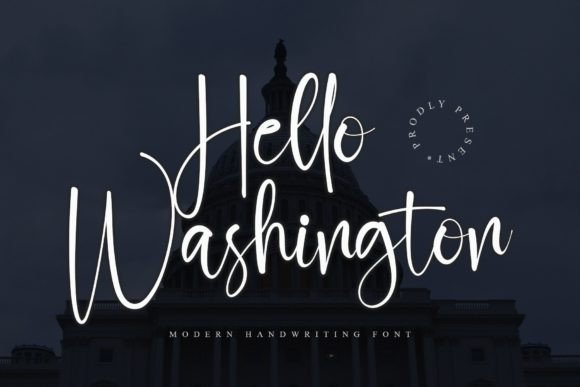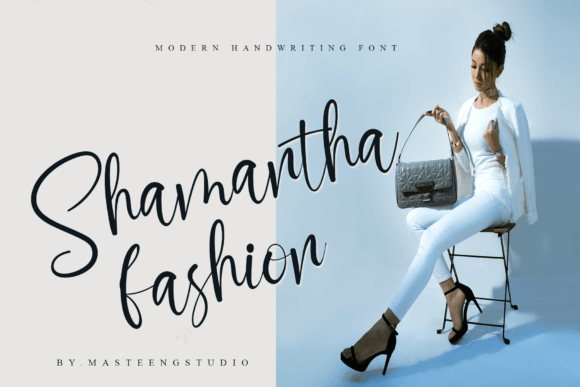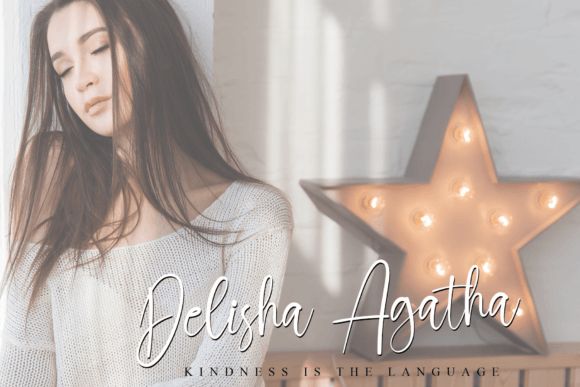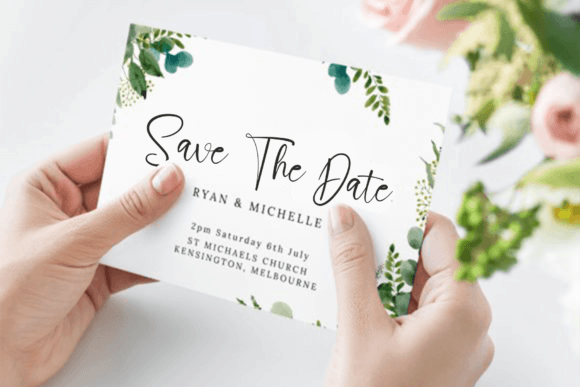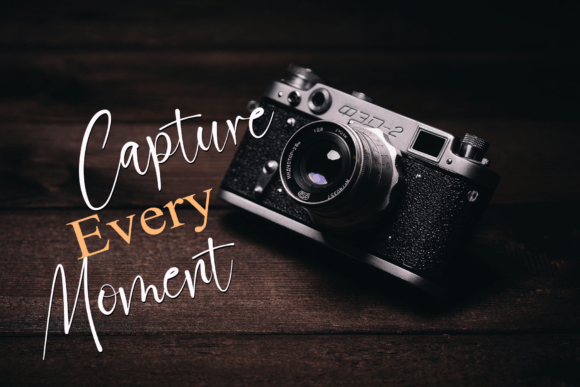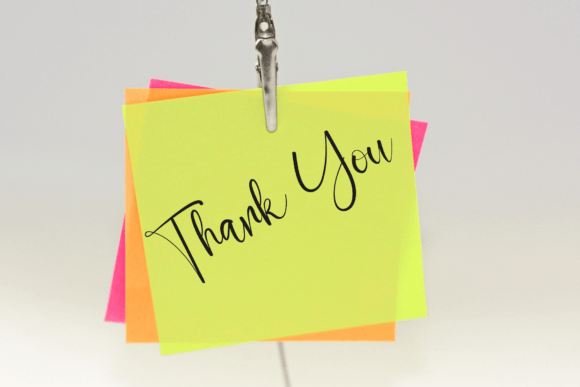
The Perfect Font for Making a Lasting Impression
Remember that moment when you stumbled upon the perfect font for your design project? It’s like finding the missing piece to a beautiful puzzle, and suddenly everything falls into place. For designers, discovering the right font can be a game-changer, and that’s exactly what the Hello Washington Font offers.
This elegant handwritten font is designed to add a touch of sophistication and charm to any design. Its curvy lines and beautiful script make it perfect for product packaging, branding projects, magazine covers, social media, weddings, and more. Whether you’re looking to express a personal message or create a lasting impression, the Hello Washington Font is an excellent choice.
Hello Washington Font Key Features
- Unique Characteristics: Hello Washington Font features a unique blend of modern and vintage elements, with a strong emphasis on readability and aesthetics.
- Kerning and Ligatures: Hello Washington Font includes advanced kerning and ligature features, ensuring smooth and seamless text rendering.
Hello Washington Font Review
Hello Washington Font is a beautiful, modern script font that I’ve had the pleasure of working with. ✨ It’s perfect for adding a touch of elegance and sophistication to any design project. The font’s flowing curves and rounded edges make it ideal for creating a warm and inviting atmosphere.
Some of the things that work well with Hello Washington Font include:
- Its versatility – it works well for both digital and print projects
- Its readability – the font is clear and easy to read, even at smaller sizes
- Its customizability – the font comes with a range of OpenType features that allow for subtle variations in style and spacing
- ⚠️ The font may be a bit too ornate for certain projects, such as those with a more minimalist or modern aesthetic
- ⚠️ The font’s high x-height can make it difficult to pair with fonts that have a lower x-height
Overall, I’m really impressed with Hello Washington Font. It’s a beautiful, high-quality font that’s perfect for designers who want to add a touch of elegance and sophistication to their projects.
Hello Washington Font: A Practical Application Guide
The Hello Washington Font is ideal for:
- Creating patriotic designs and graphics
- Adding a touch of elegance to wedding invitations and stationery
- Designing educational materials and signage
Remember to use the font consistently throughout your design to create a cohesive look.
Alternatives to Hello Washington Font
Great Vibes Font is a beautiful, elegant script font that is perfect for creating a sophisticated and high-end feel. It is ideal for use in luxury branding, wedding invitations, and fine art projects. Great Vibes Font is more cursive and flowing compared to Hello Washington Font, which has a more classic feel. It is also more versatile and can be used for both formal and informal projects.
Bellissima Font
Bellissima Font is a classic, elegant script font that is reminiscent of traditional calligraphy. It is perfect for use in high-end branding, invitations, and fine art projects where a touch of sophistication is desired. Bellissima Font is more ornate and detailed compared to Hello Washington Font, which has a more straightforward feel. It is ideal for projects that require a sense of luxury and refinement.
Q: Is Hello Washington Font optimized for digital use?
Yes, Hello Washington Font is optimized for digital use, including web, mobile, and print applications. The font is designed to render smoothly at various resolutions and sizes, ensuring a crisp and clear display on different devices.